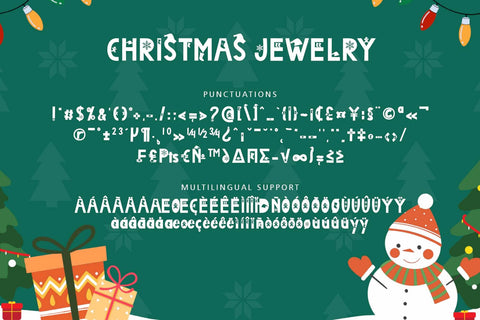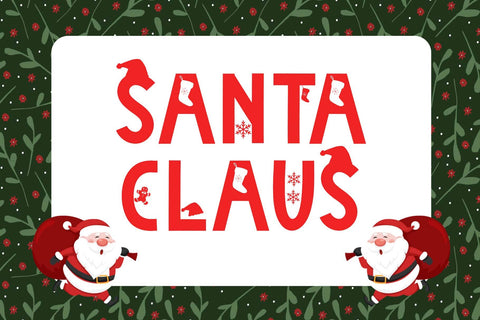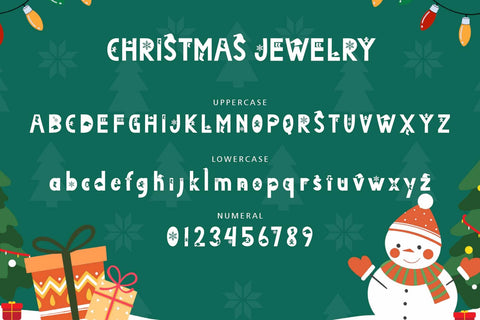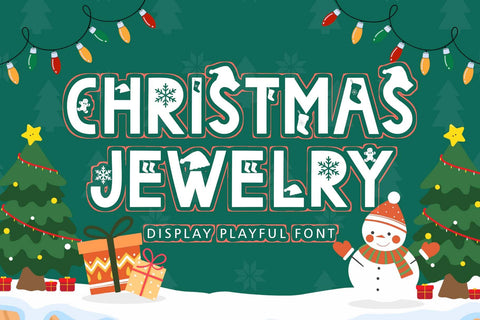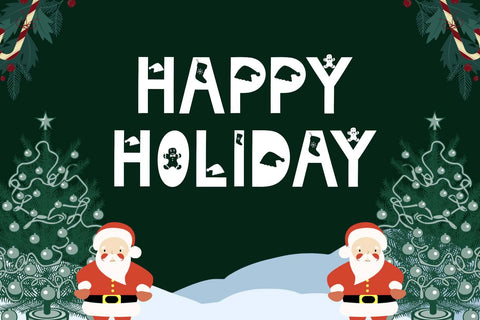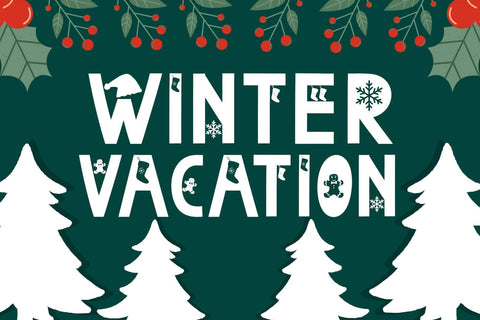
Christmas Jewelry
"Christmas Jewelry" is a unique and elegant display font. It comes with uppercase, lowercase, numbers, punctuation, and multilingual support. It is perfect for use on Christmas, Christmas greetings, parties, festivals, birthdays, winter, new year, posters, prints, banners, branding, stickers, and more.